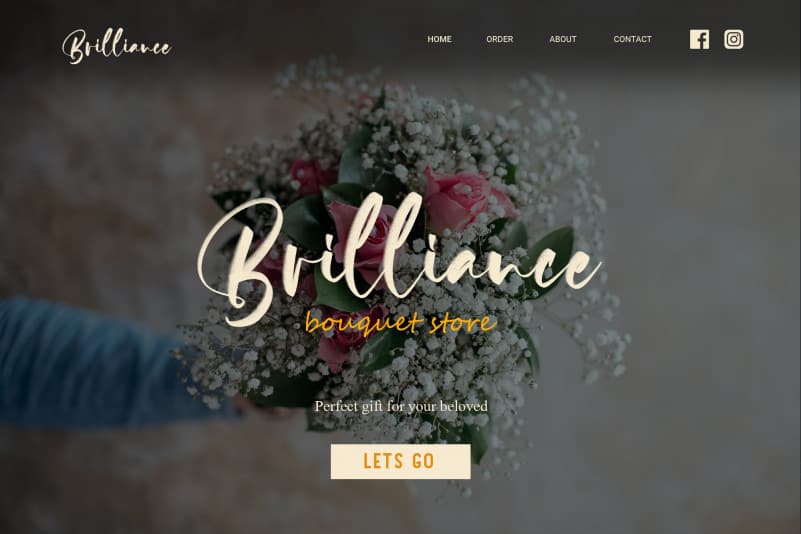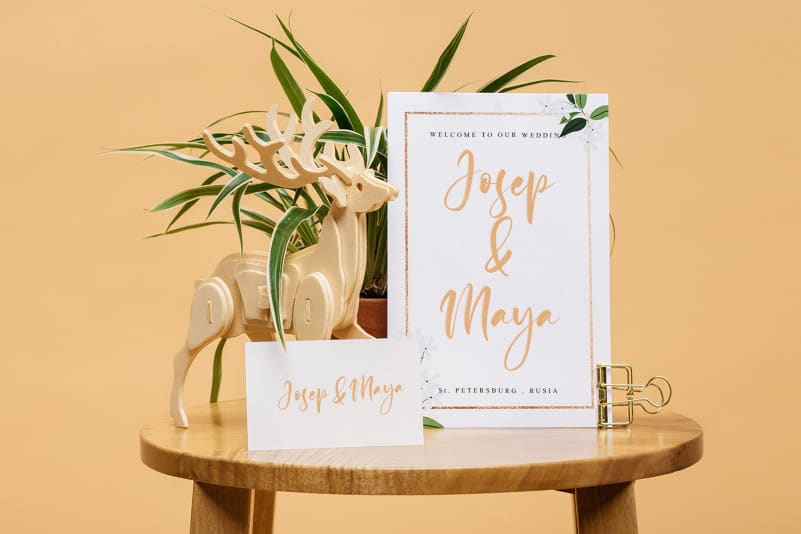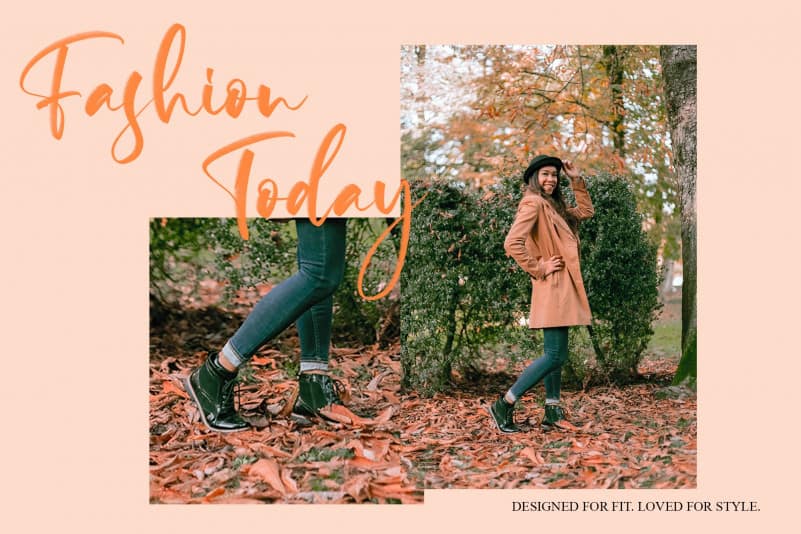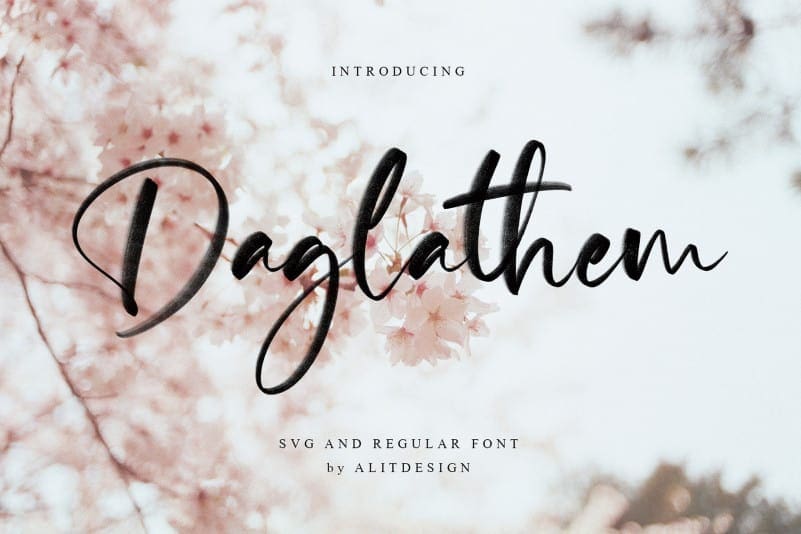
Daglathem Brush Font
Daglathem Brush Font is The latest Brush Script created using a calligraphy brush pen, made as natural as possible so that it displays an attractive handwritten impression so that it can be applied to wedding invitation designs. It’s designed and shared by Alit Design. This typeface is a SVG Handwritten Script Font that carries the concept of Tropical and the beauty of the font from each letter, Daglathem Brush Font is perfect for printed quotes, wedding invitation cards, social media headlines, product packaging, and more!